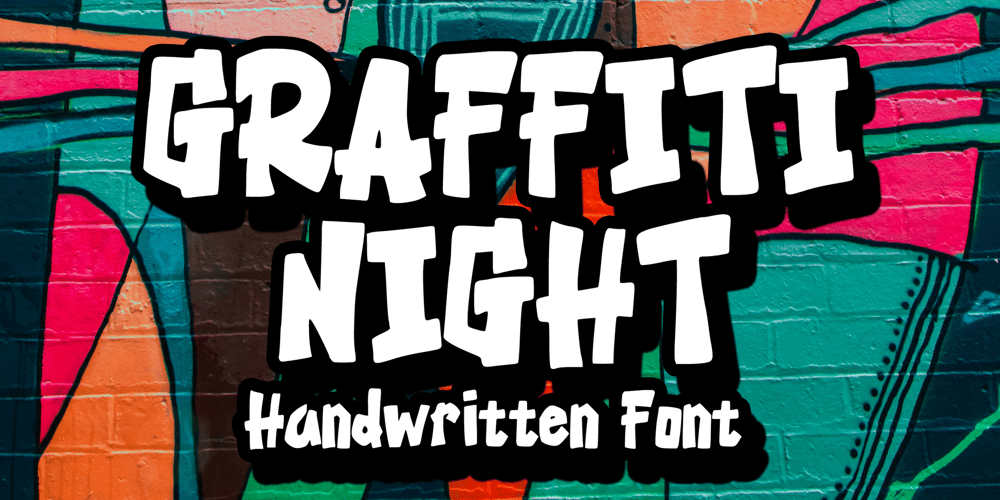
Graffiti Night
Graffiti Night font
Graffiti Night Font Family was designed by Gabriel Valentinus and published by Mvmet. Graffiti Night contains 1 styles and family package options. Graffiti Night is a bold graffiti street style display font, suitable for your graffiti style needs. You can use it for anything ranging from t-shirts and clothing, for your book designs, street art needs, greeting cards, stickers, posters, banners, or anything that needs a bold and fun touch. Try it to create fabulous designs and feel the fun and cheering vibes with it!